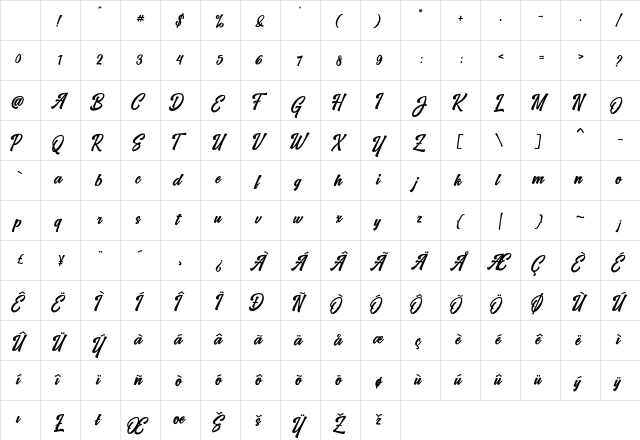
Complete Vrindals Script Dafont Regular glyph index. Displaying only characters natively supported by Vrindals Script Dafont Regular font.
Vrindals Script Dafont flows with the natural rhythm of handwritten lettering, making it ideal for designs that call for warmth and personal expression.
Font Pairing: Combine Vrindals Script Dafont with a simple geometric sans for maximum contrast - the tension between flowing curves and clean structure is a classic typographic pairing.
Pro Tip: Use Vrindals Script Dafont for short runs of text - names, titles, or taglines. Extended body copy in script faces tires the eye quickly.